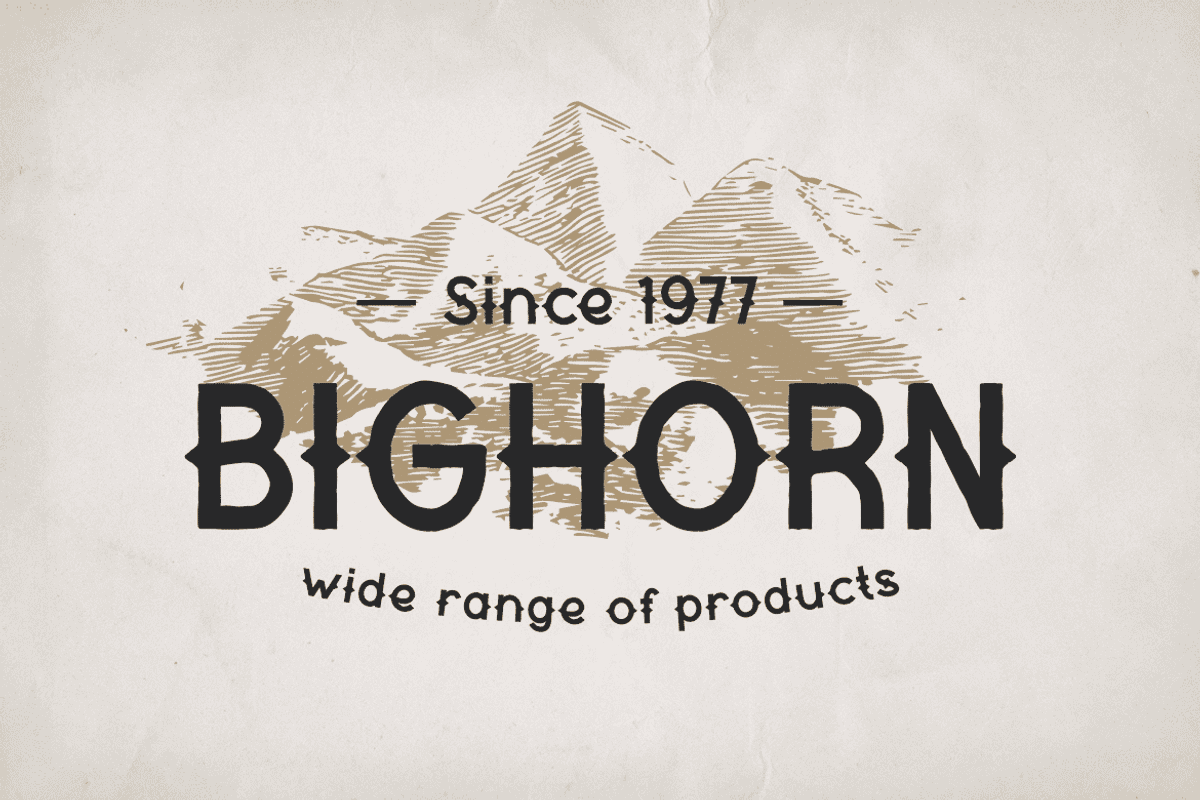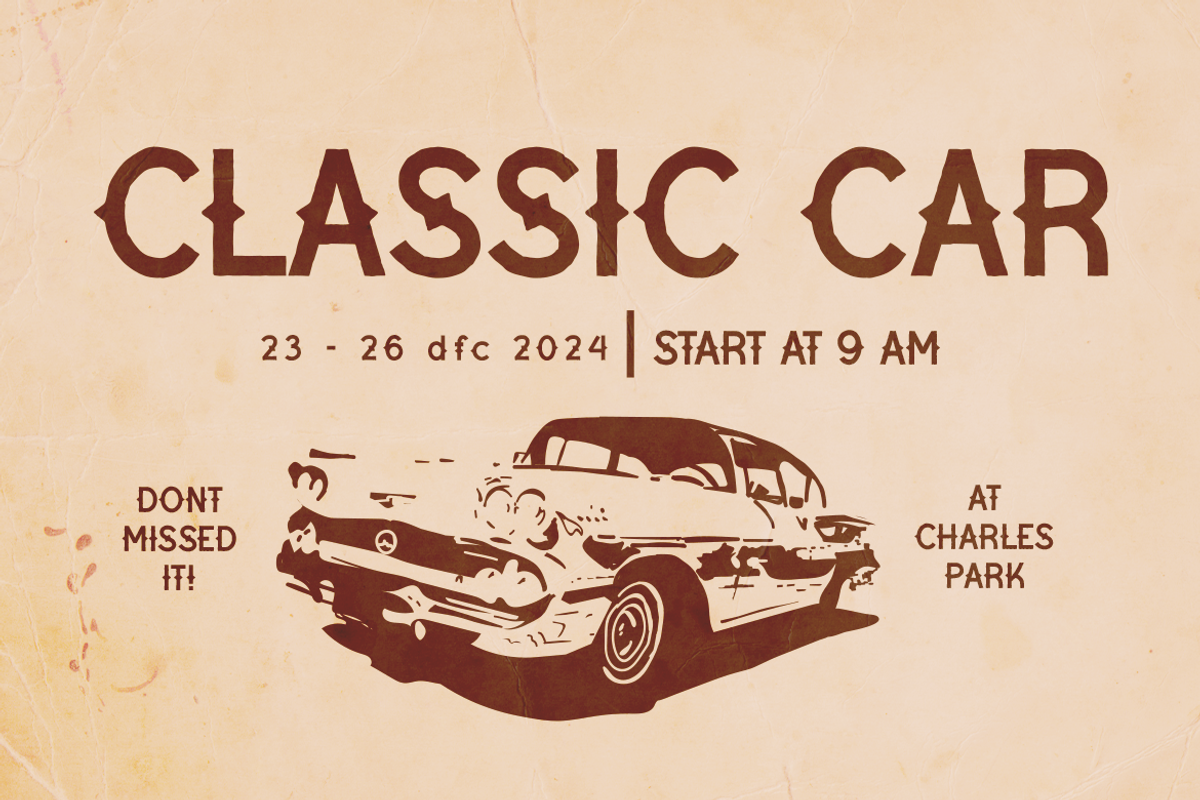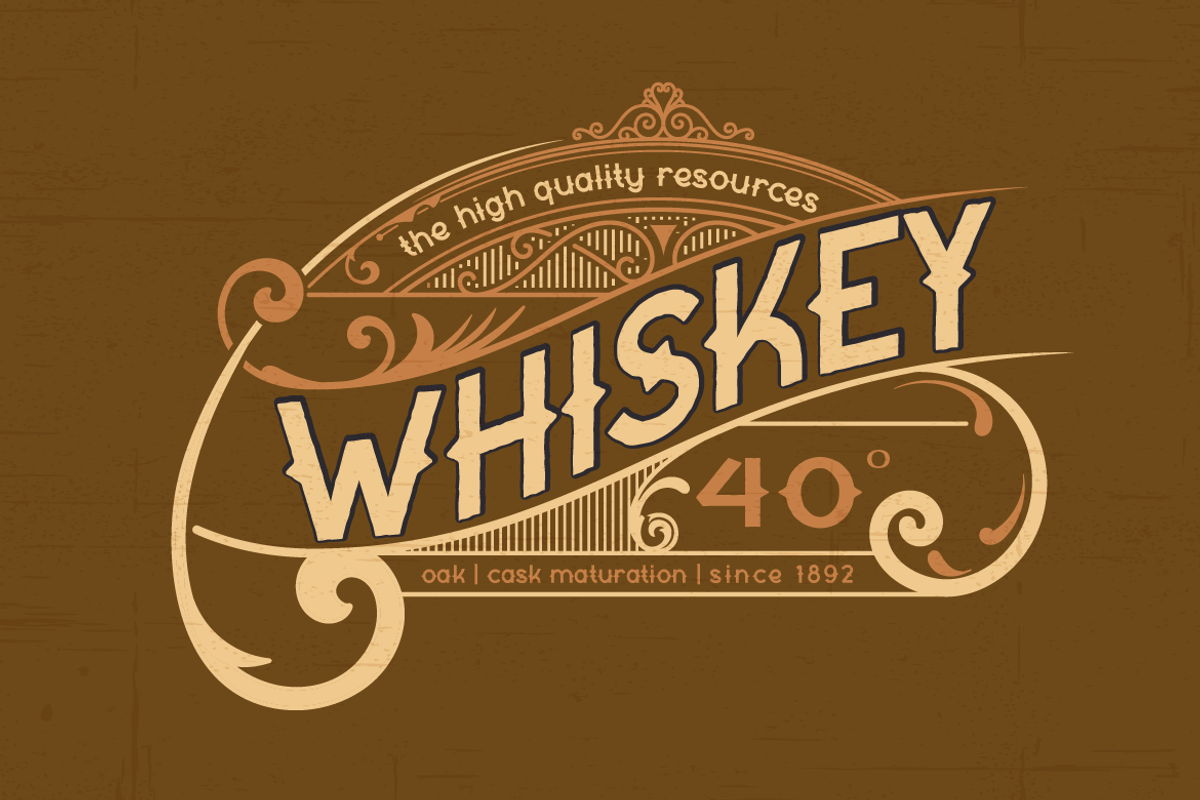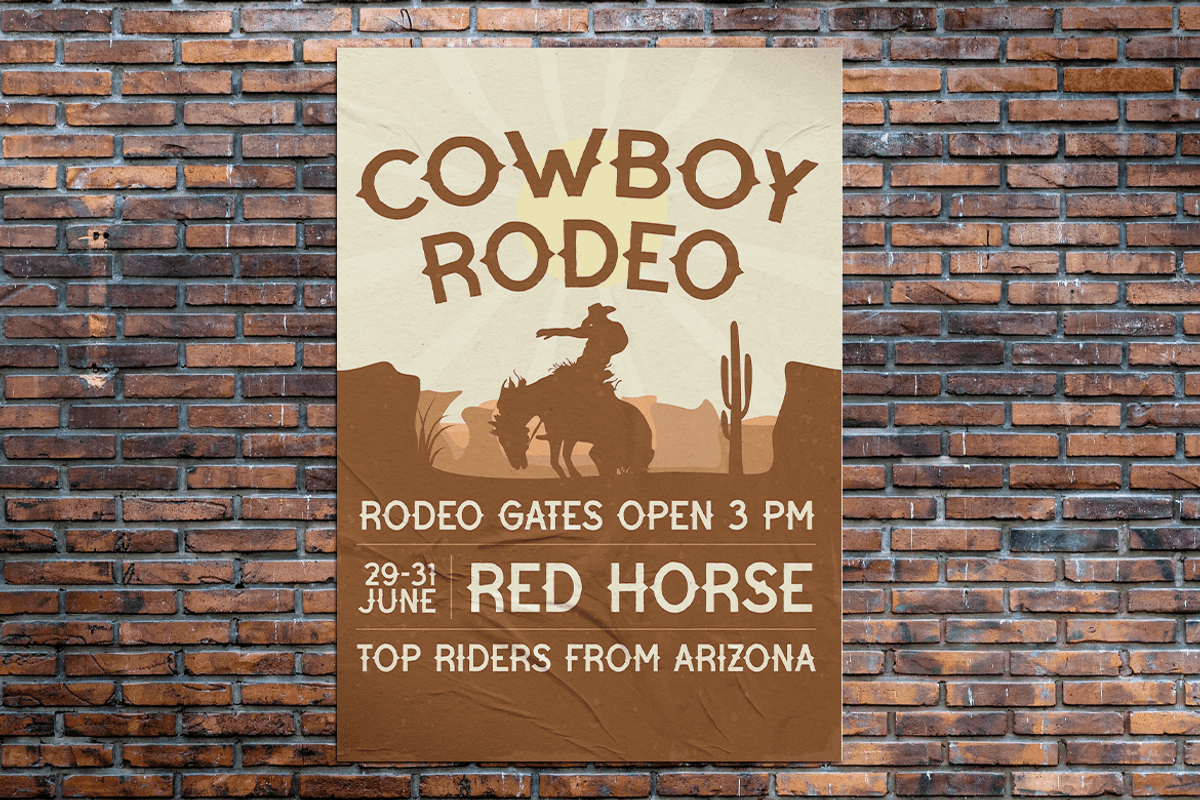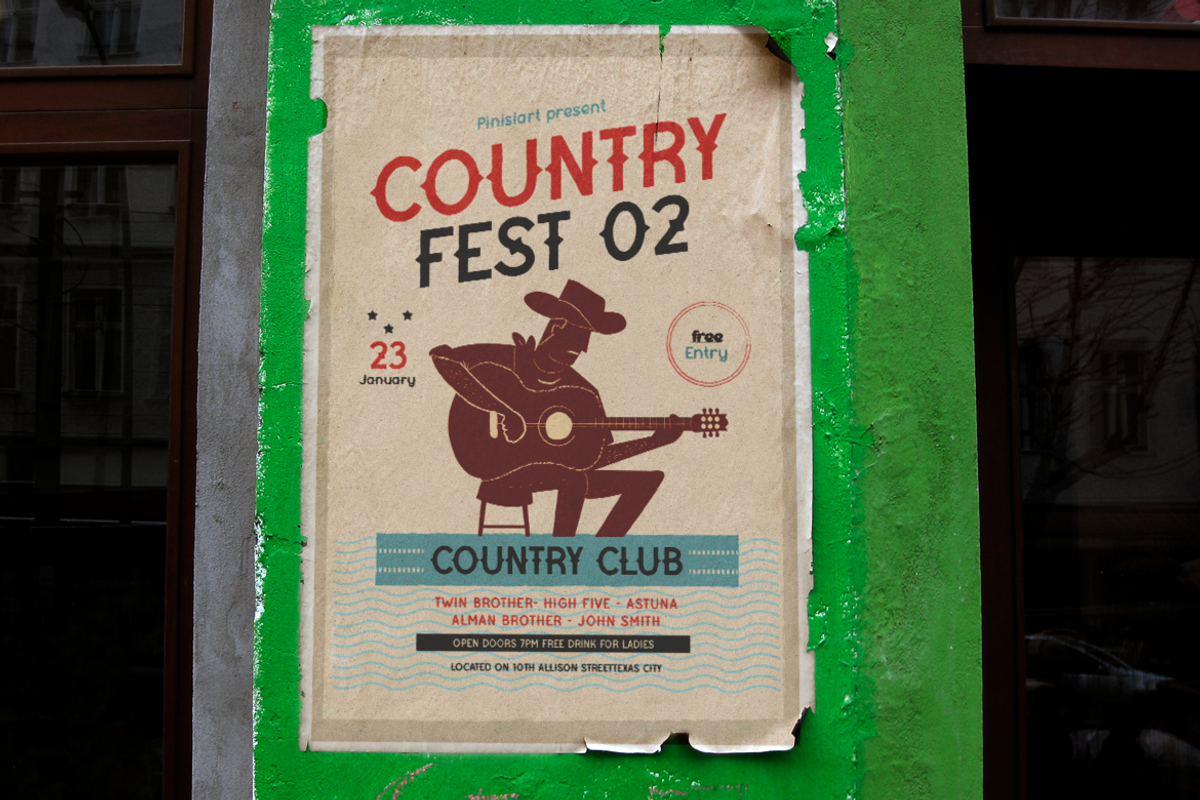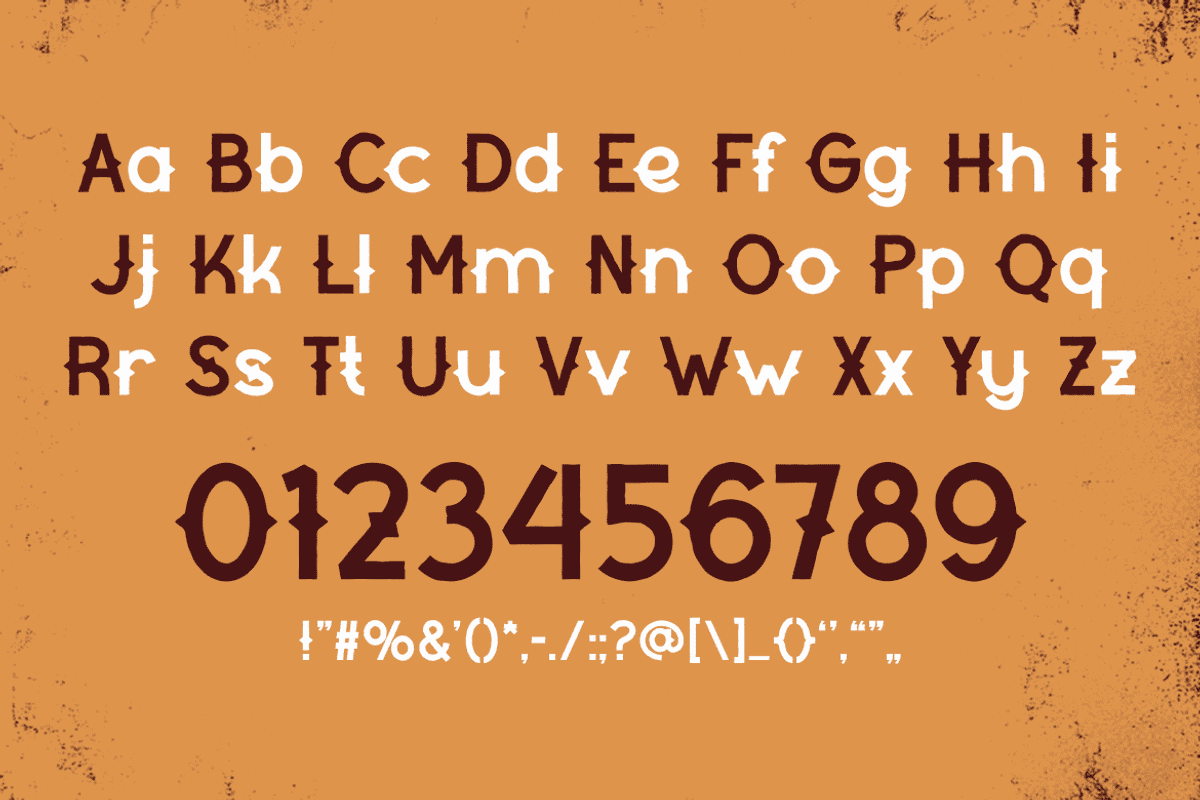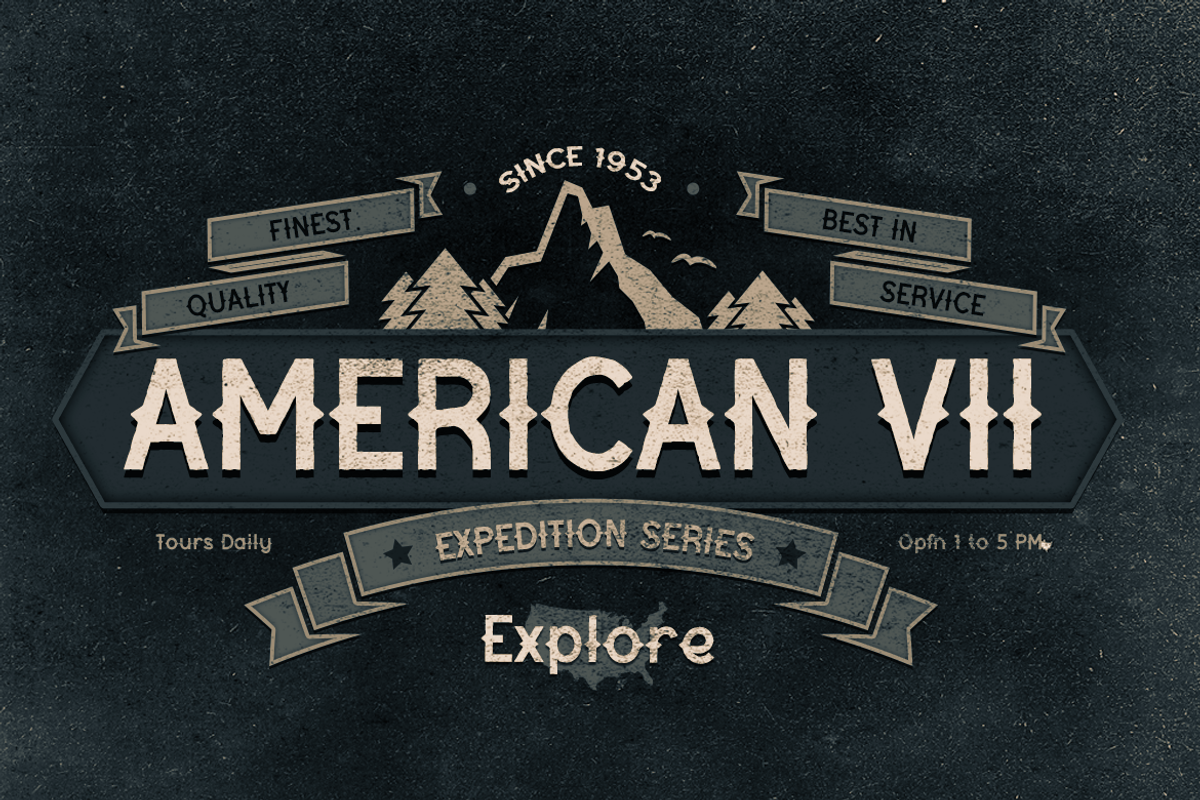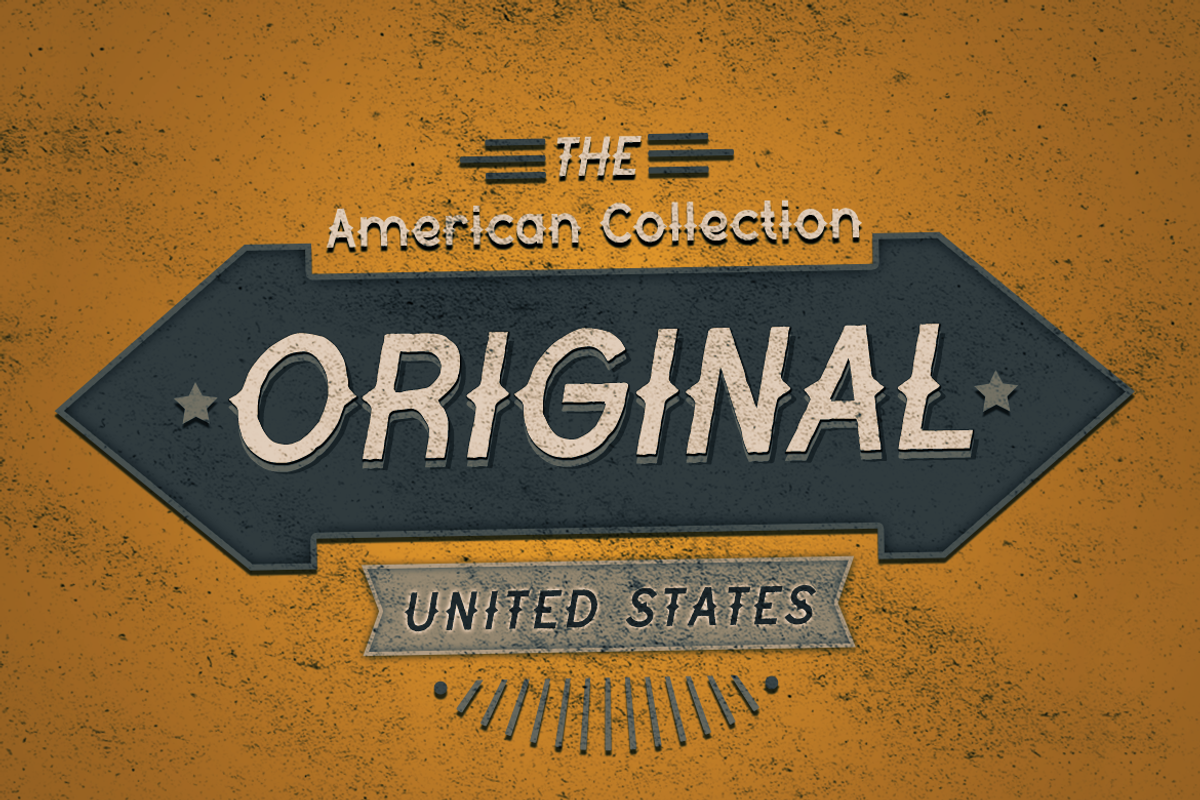
JAGOAN
Jagoan – Vintage Elegance in Typography
We proudly introduce Jagoan Font, a typographic masterpiece blending vintage allure with classic style. Each letter is meticulously crafted, evoking a warm sense of nostalgia and an enduring elegance. From logo designs to promotional materials, Jagoan Font adds an impressive touch, transporting users back to a glorious era while exuding a timeless sophistication. With its timeless grace, Jagoan Font is the perfect choice for anyone seeking a captivating and refined impression in every design endeavor.